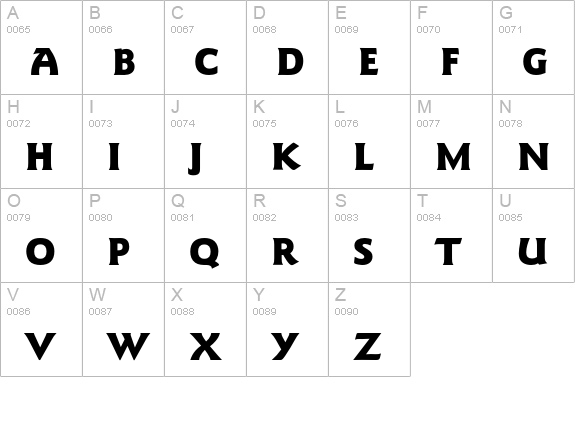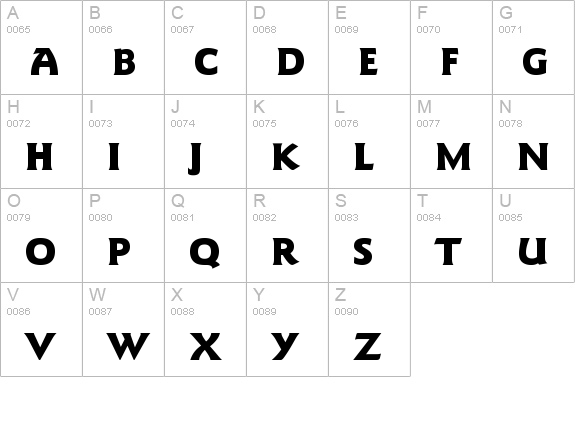
GoudySansEF-Black is a maximum-weight, dramatic variant in the GoudySansEF typeface family \xE2\x80\x94 well suited to maximum-impact headlines, posters, and packaging.
GoudySansEF-Black is a bold and striking typeface that demands attention with its strong, clean lines and modern aesthetic. Perfect for headlines, logos, and other display purposes, this font exudes sophistication and professionalism. What's even better is that GoudySansEF-Black is available for free download at FontsMarket.com. Whether you're a designer looking to add a touch of elegance to your projects or a business owner in need of a standout font for your branding, this typeface is the perfect choice. Don't miss out on the opportunity to enhance your designs with this eye-catching font that is both stylish and accessible.